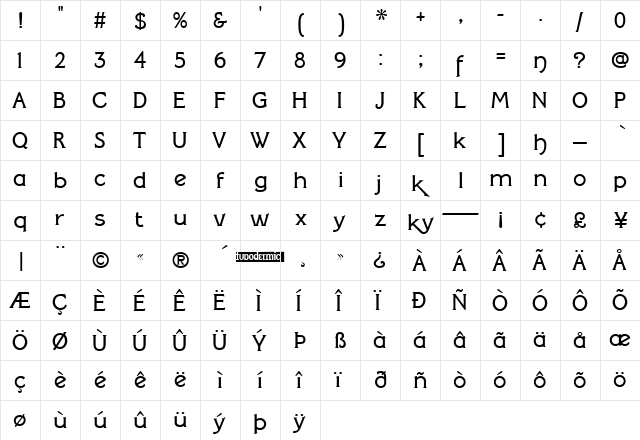
Silentina Film Regular
Design Context for Silentina Film Typeface
Silentina Film offers clean, dependable letterforms without strong stylistic allegiance, making it a practical choice for designers who need flexibility.